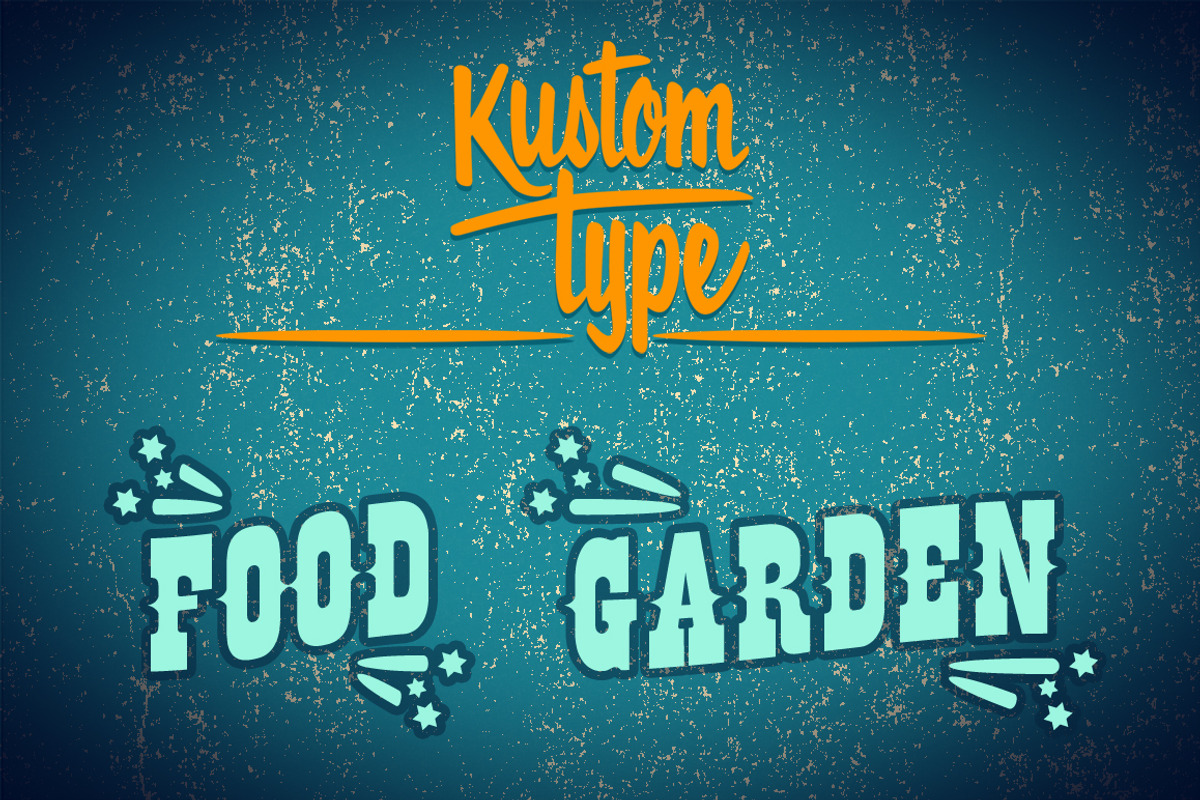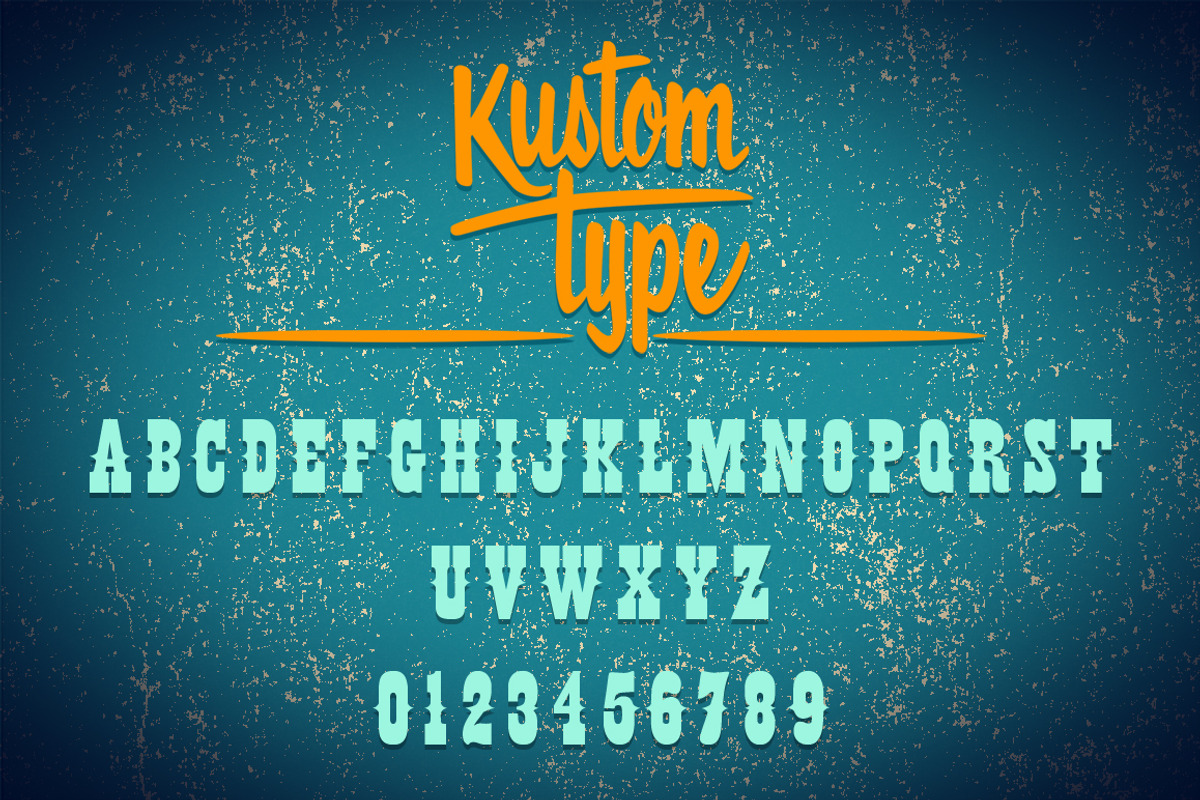
Buffalo Circus Font
Buffalo Circus Font by Kustomtype is a font selected for branding, posters, packaging, typography.
- All characters are fully hand traced and vectorized and provided with appealing glyphs and cool catchwords.
Buffalo Circus Font by Kustomtype fits naturally into Branding, posters, packaging, typography.